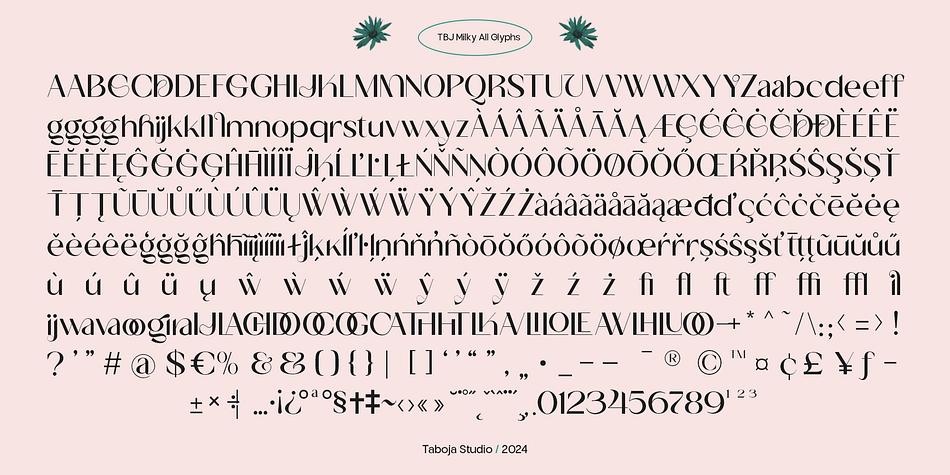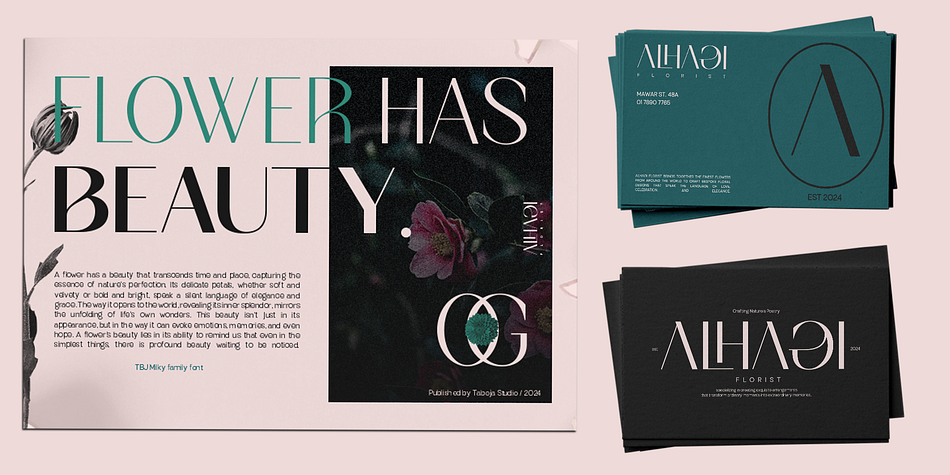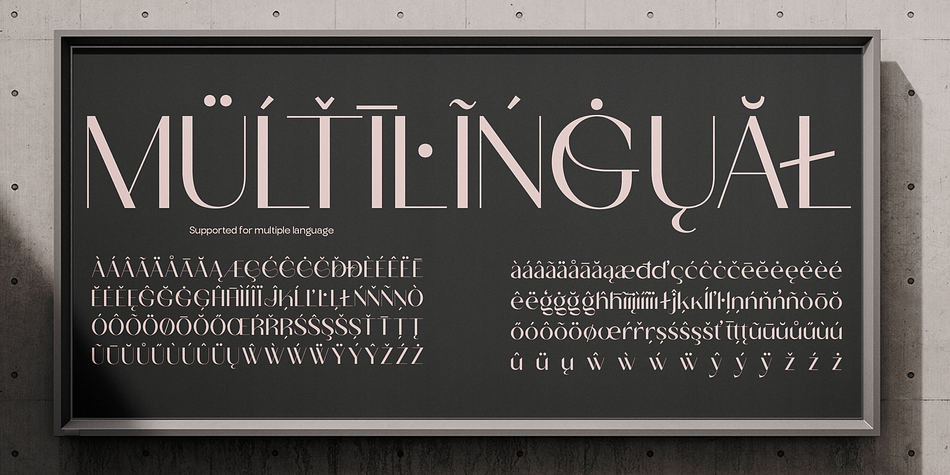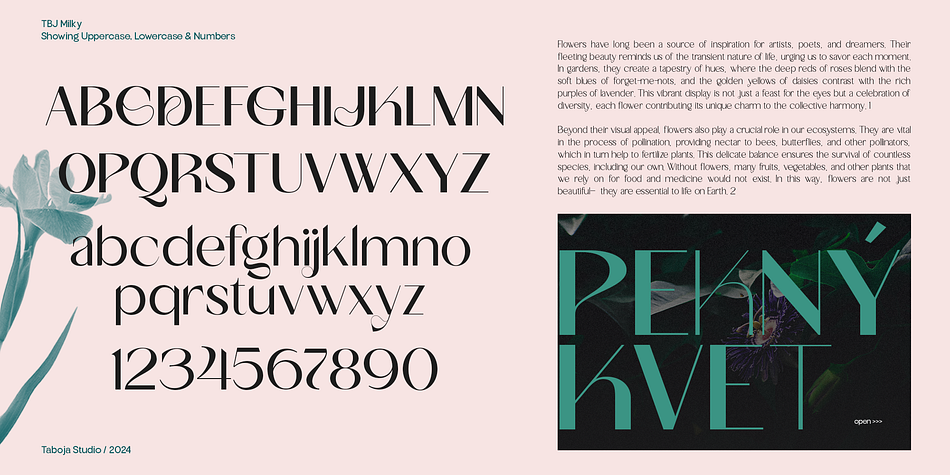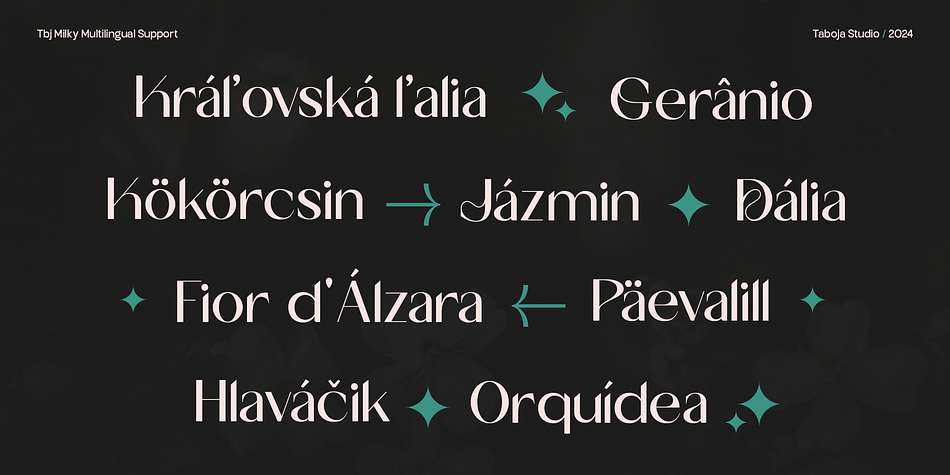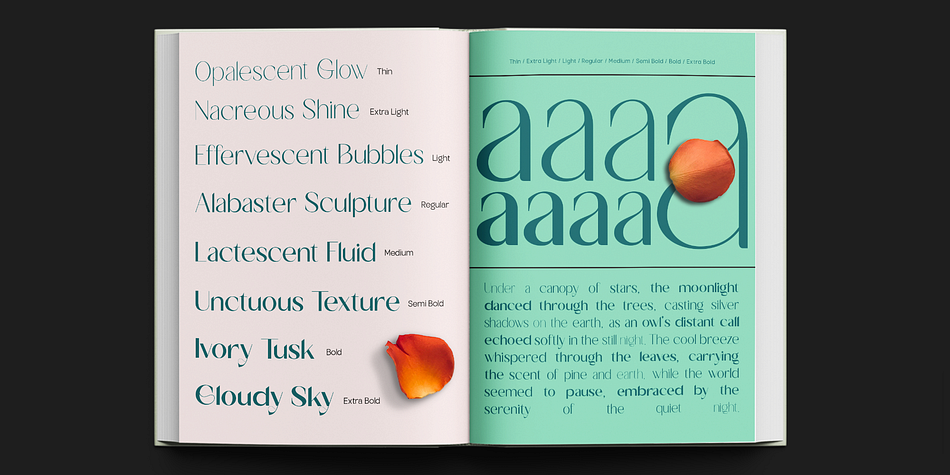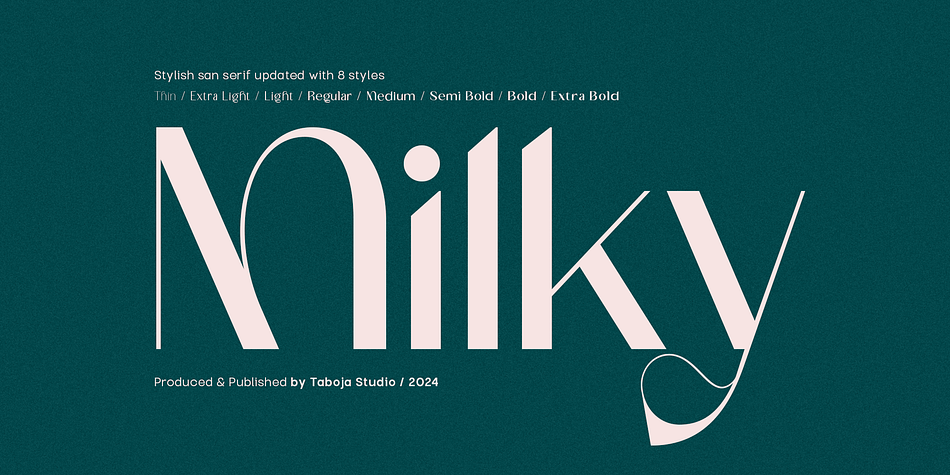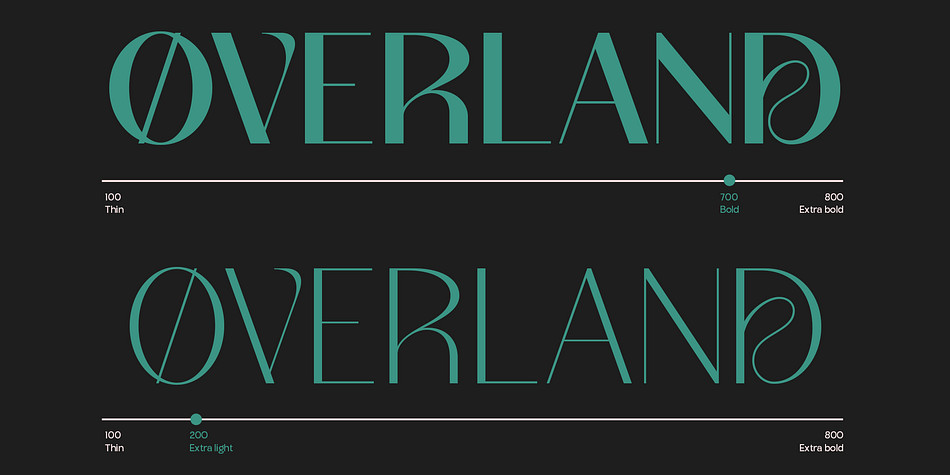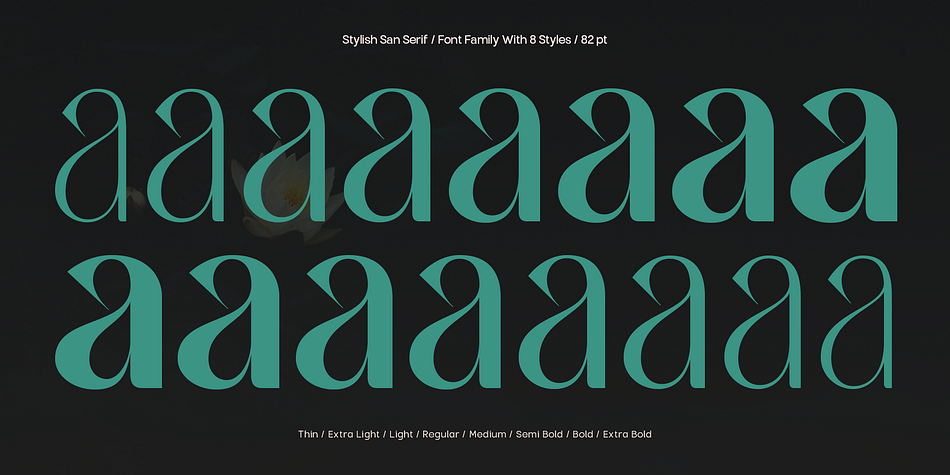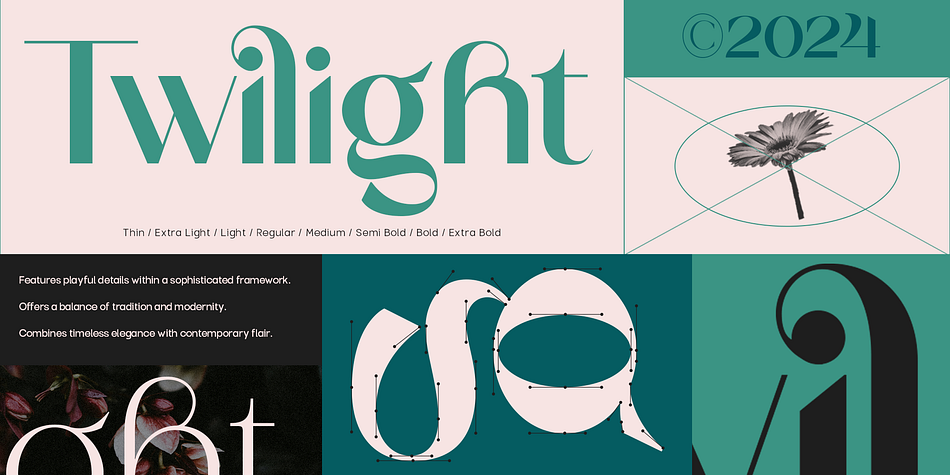
TBJ Milky
TBJ Milky is an art nouveau font family. This typeface has nine styles and was published by Taboja Studio.
Introducing the newly updated Milky Typeface Display Font, now available with 8 versatile weights. This refreshed version maintains the signature contrast of bold and thin strokes, offering a modern edge with flexibility for all your design needs. Each update has been thoughtfully crafted to preserve the font’s elegance and balance, providing a perfect blend of strength and sophistication.
With its sleek lines and contemporary style, Milky is ideal for branding, headlines, and standout visual displays. Whether you’re aiming for bold impact or refined detail, the enhanced Milky Typeface adapts beautifully to any creative project.